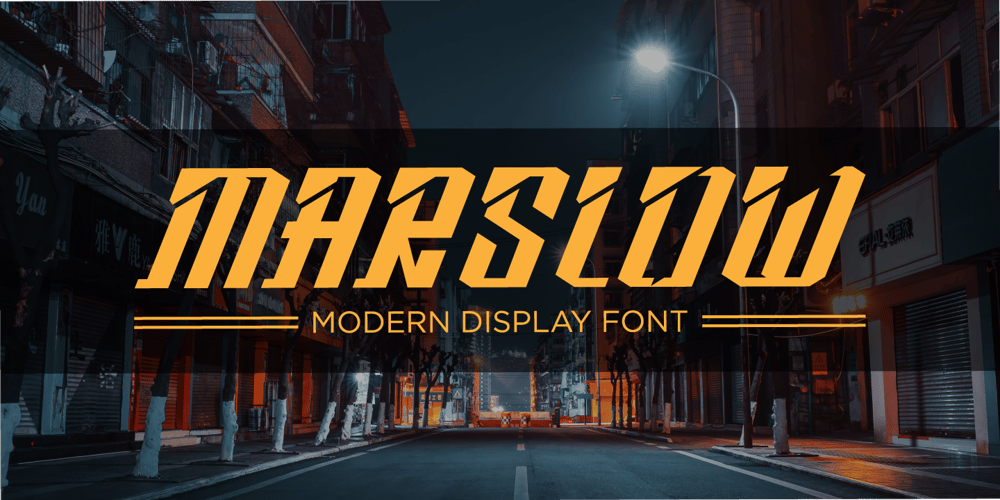
Marslow Font Family was designed by Gais Zaelani and published by JprintStudio. Marslow contains 1 styles and family package options. Marslow is a modern look font with a futuristic vibe, bold and clean.Get inspired by its incredible youthful vibe.Add this lettering font to your designs and watch how it comes to life and your creations stand out!